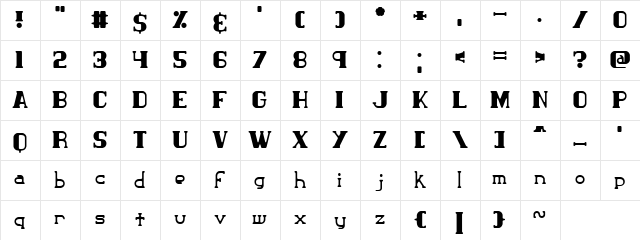
Classic Trash 2 (BRK) Regular
Design Context for Classic Trash 2 (BRK) Typeface
Classic Trash 2 (BRK) has the warm character of retro typography — evoking diners, record sleeves, and the golden age of print advertising.
Font Pairing: Combine Classic Trash 2 (BRK) with a simple slab or neutral sans — period-accurate companions reinforce the vintage feel without competing for attention.
Pro Tip: Use Classic Trash 2 (BRK) for headlines and pull quotes rather than body copy — its personality is best appreciated in short, focused bursts.